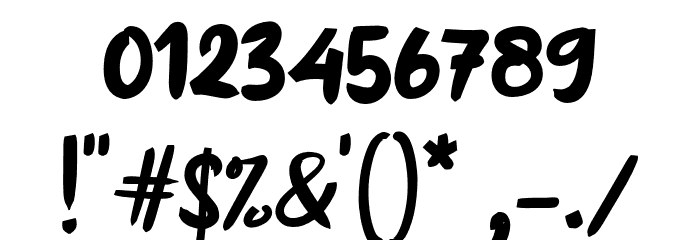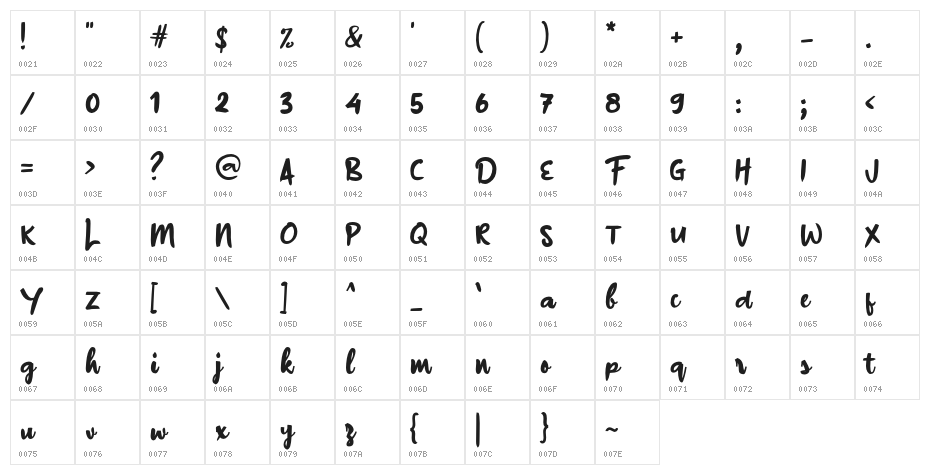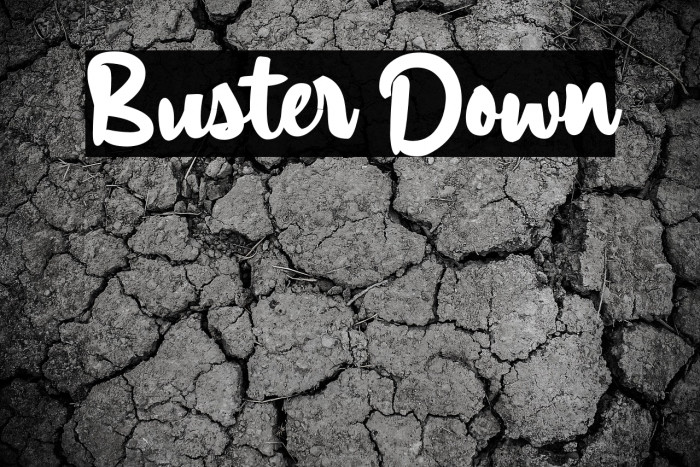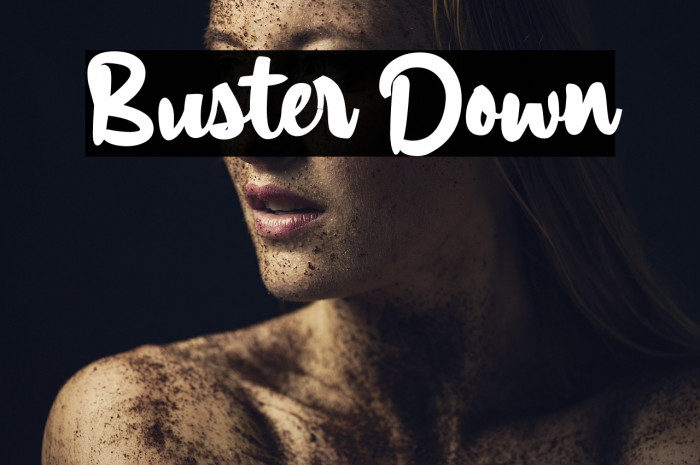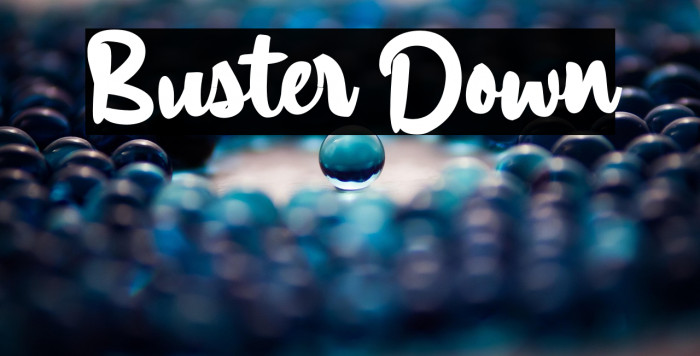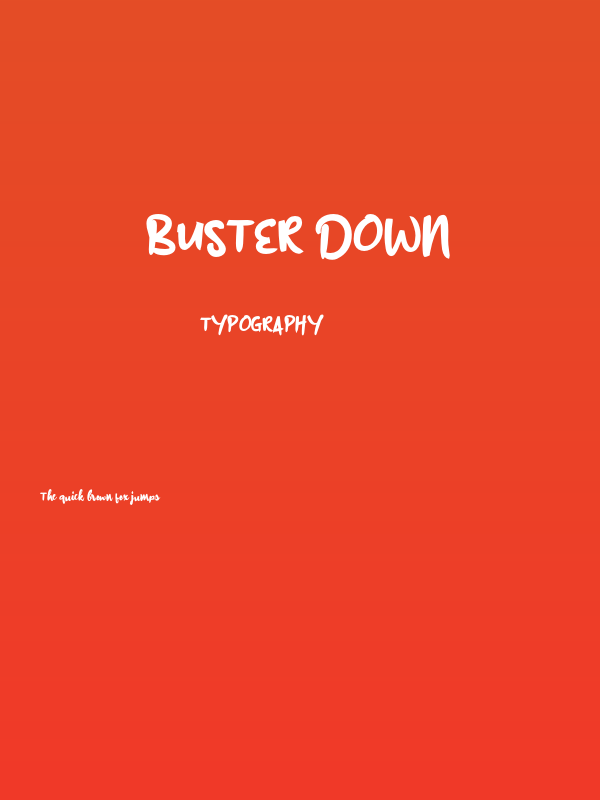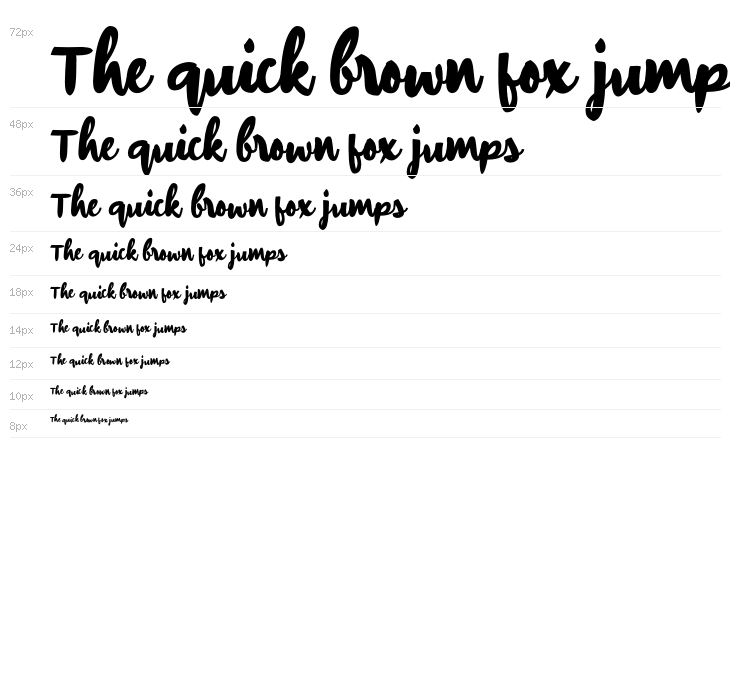
Buster Down Font
Buster Down Description
This font features a bold and playful handwritten style, characterized by its thick, rounded strokes and slightly irregular letterforms. The uppercase letters are tall and assertive, while the lowercase letters maintain a consistent flow, adding a casual and friendly touch. The numbers are bold and clear, making them easily readable. Special characters are creatively integrated, maintaining the overall playful aesthetic. This font's unique style makes it stand out, offering a sense of personality and warmth.
| Overall Style | Playful, Casual |
| Proposed Projects | Ideal for projects that require a personal touch, such as greeting cards, invitations, children's books, or playful branding materials. |